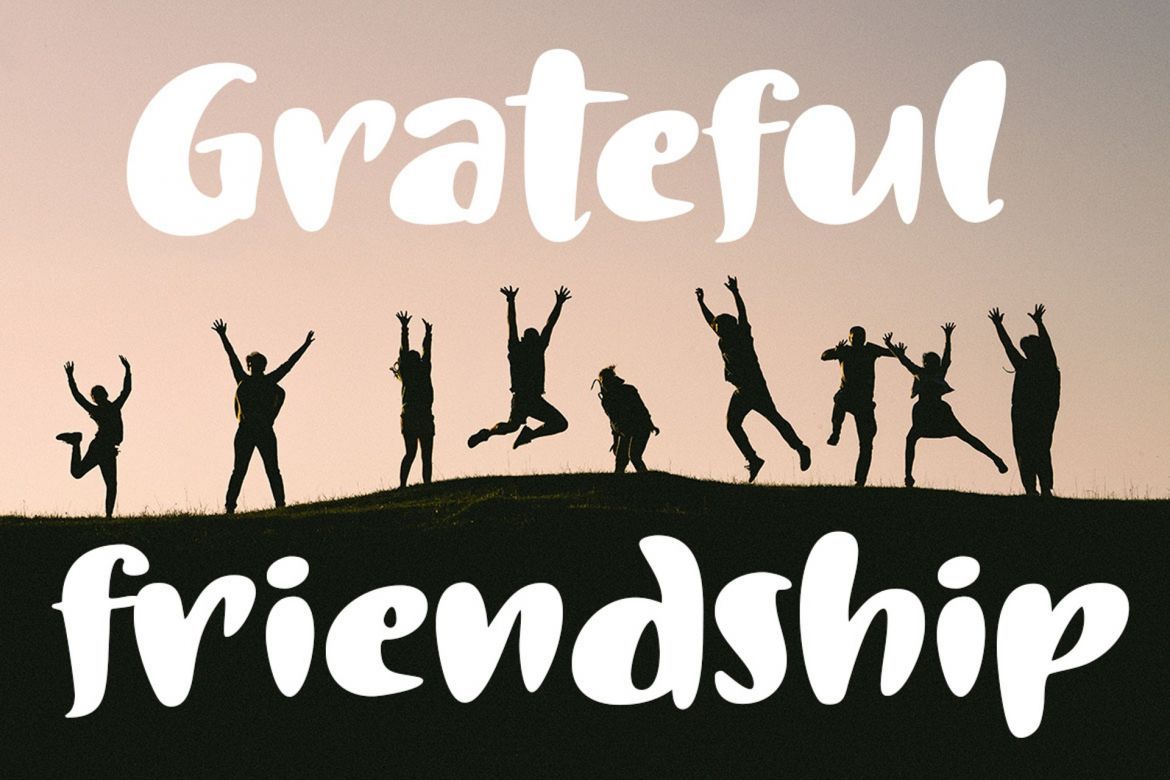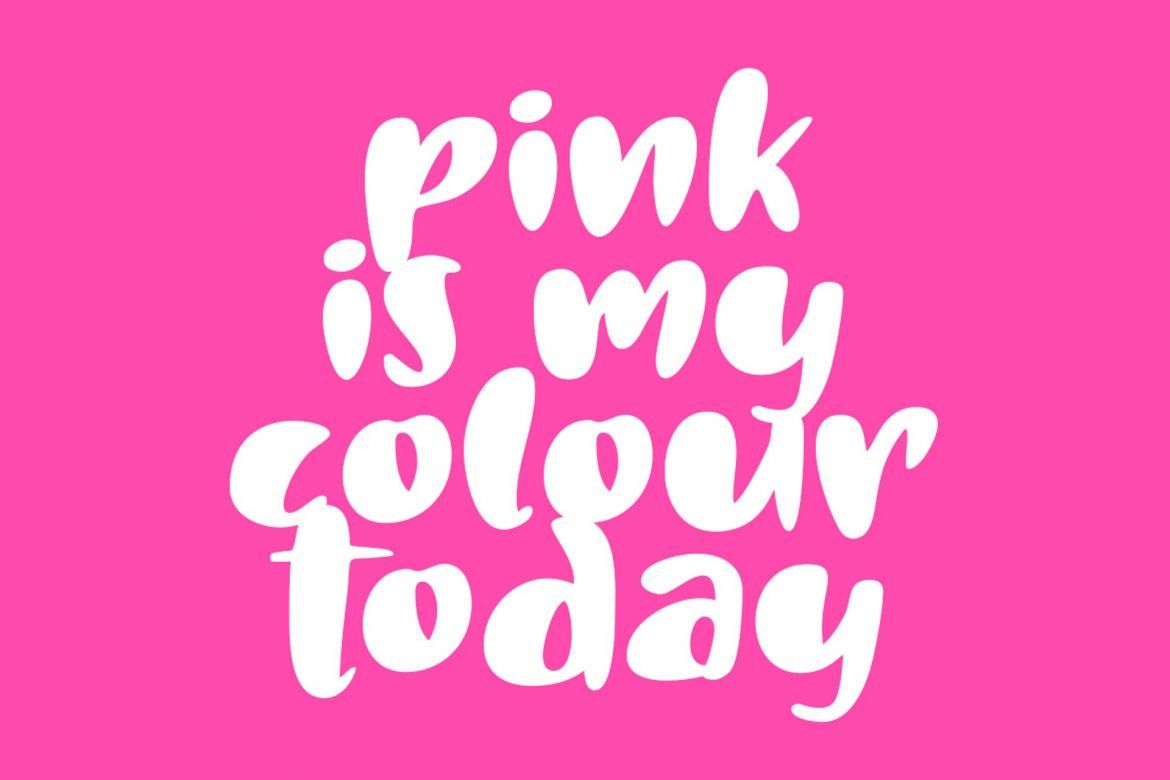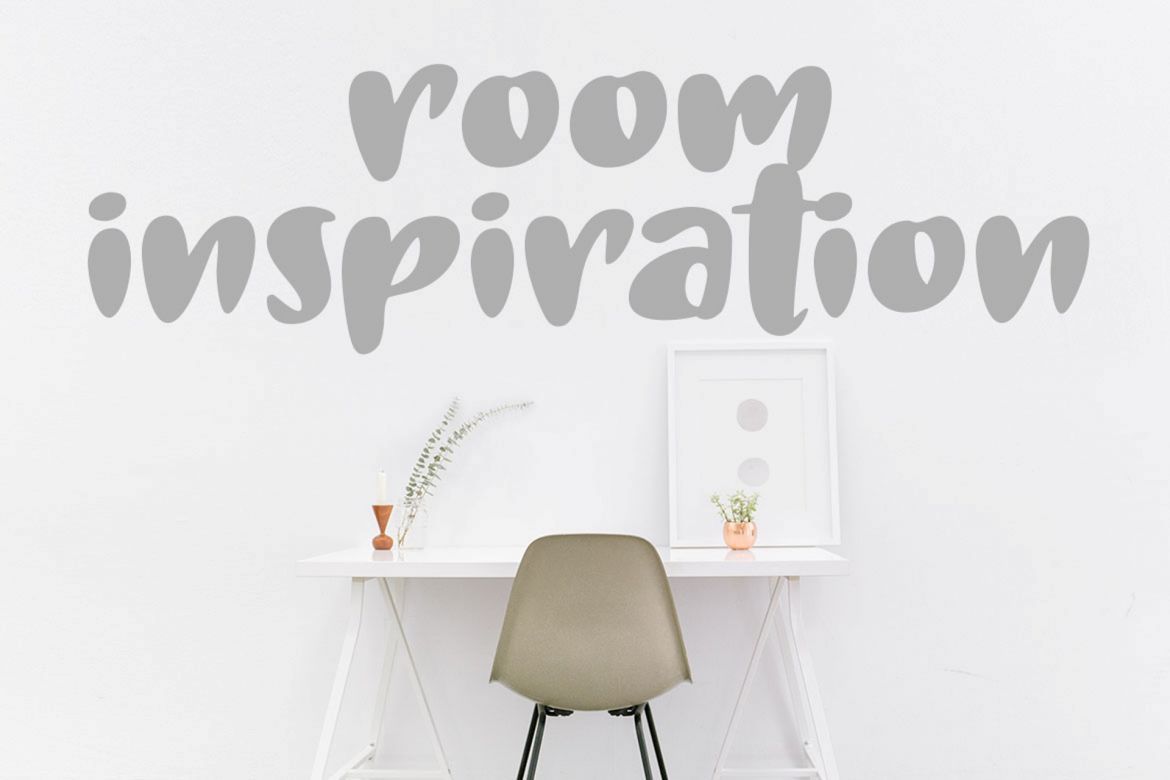
So Sweet Honey Font
So Sweet Honey Font is Fresh Romantic Font. for logo, poster, clothing, branding, party invitation, and many many other cool design projects.
• this font is fresh and cute